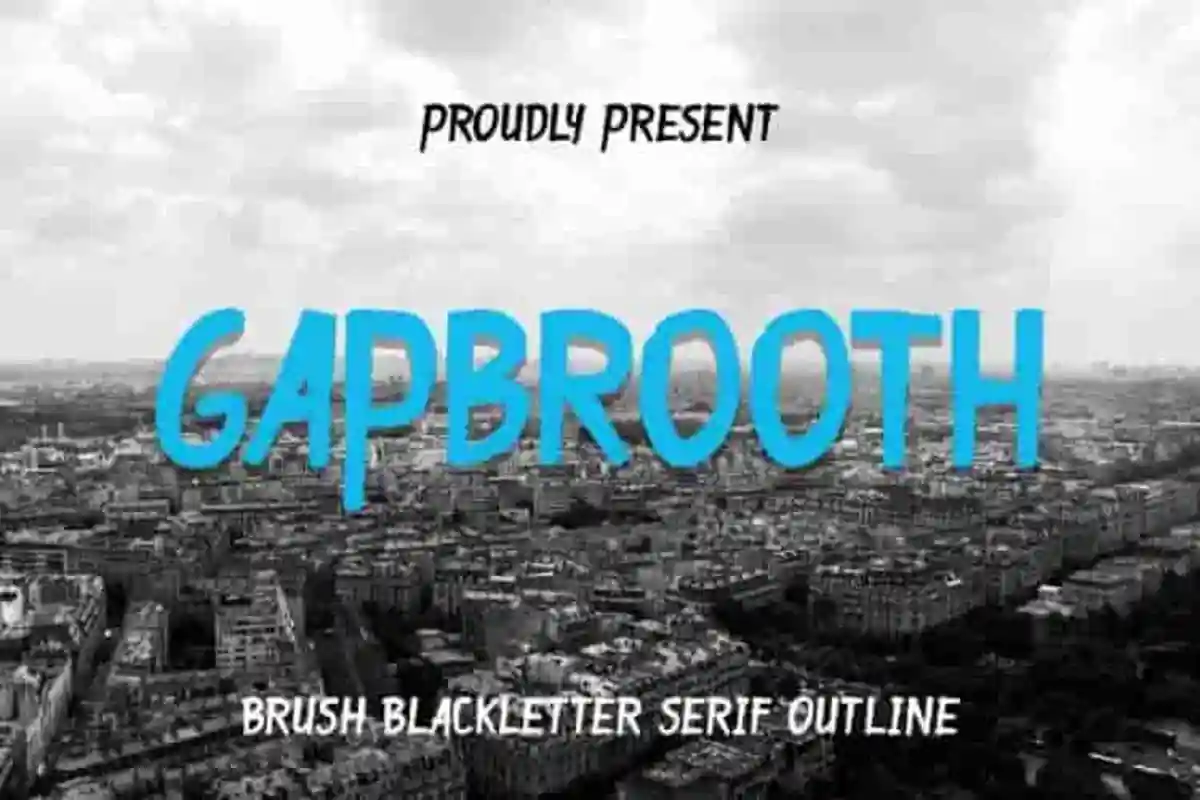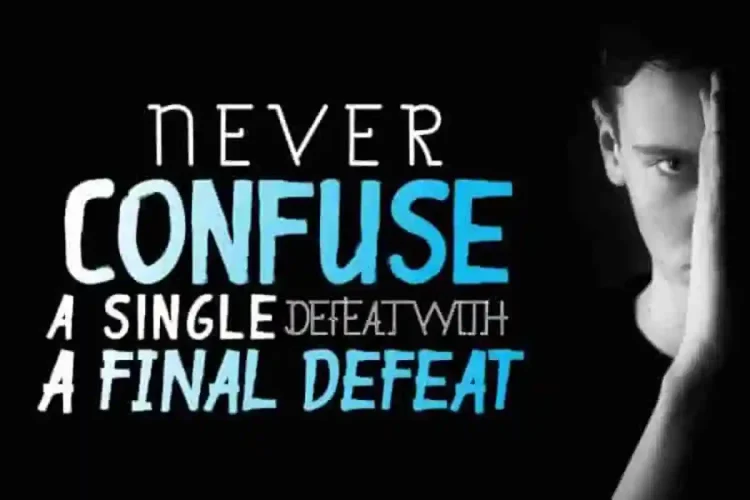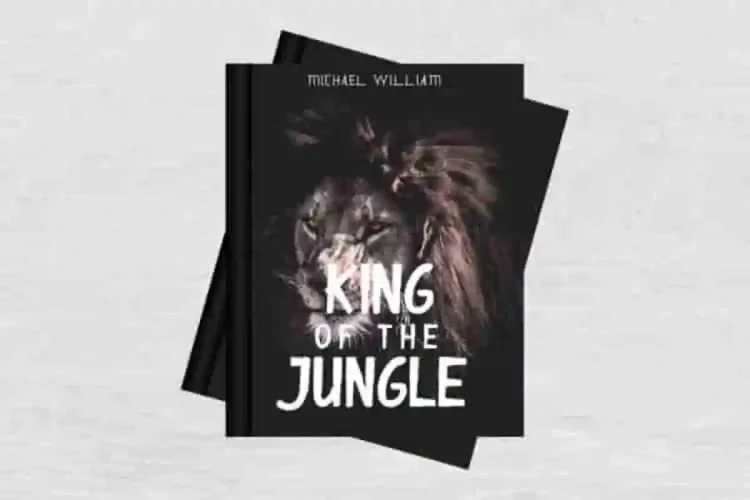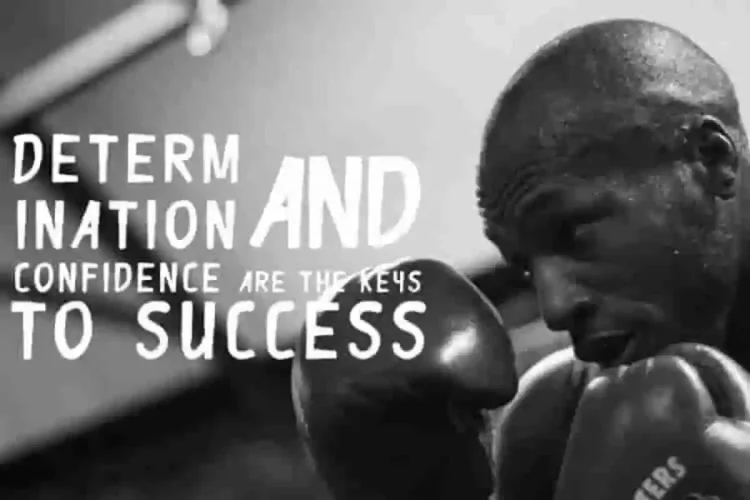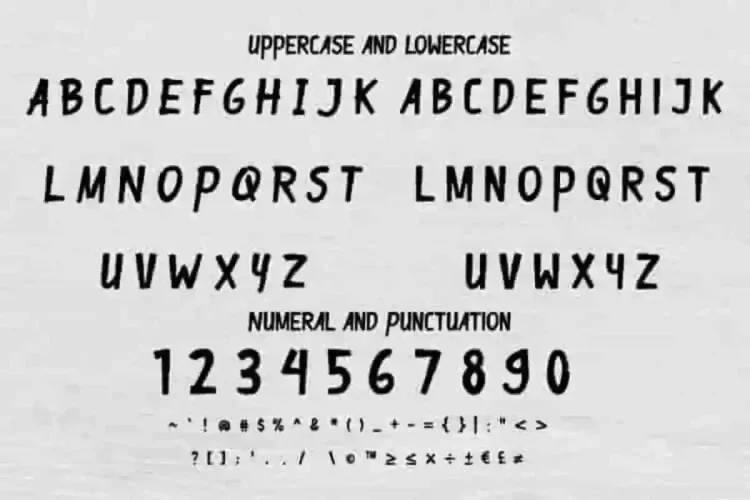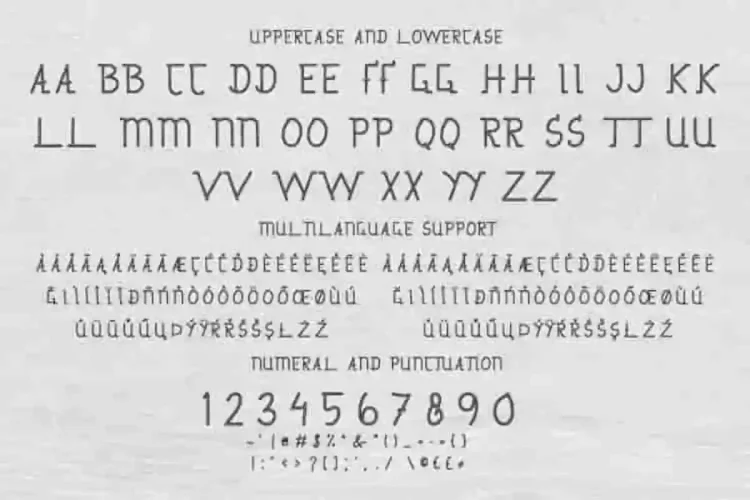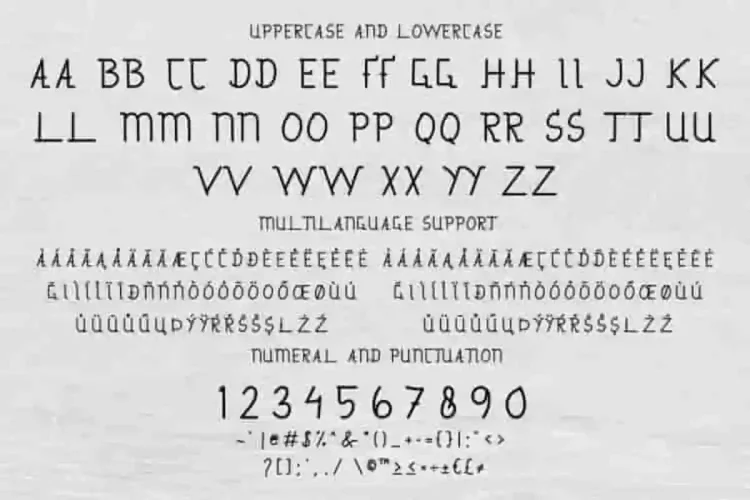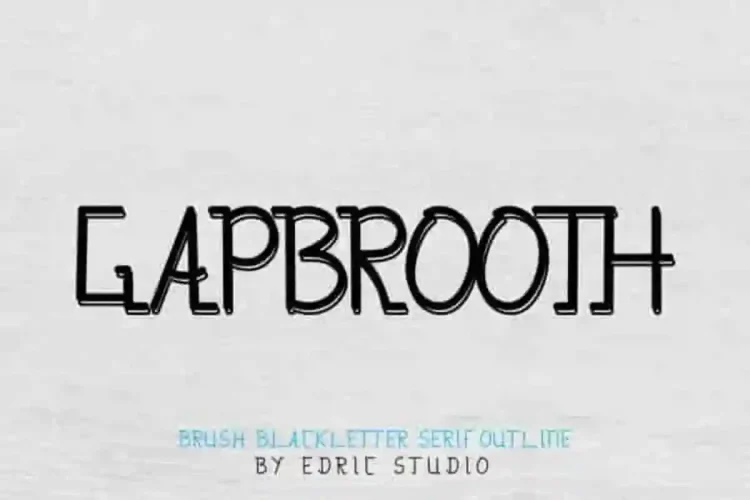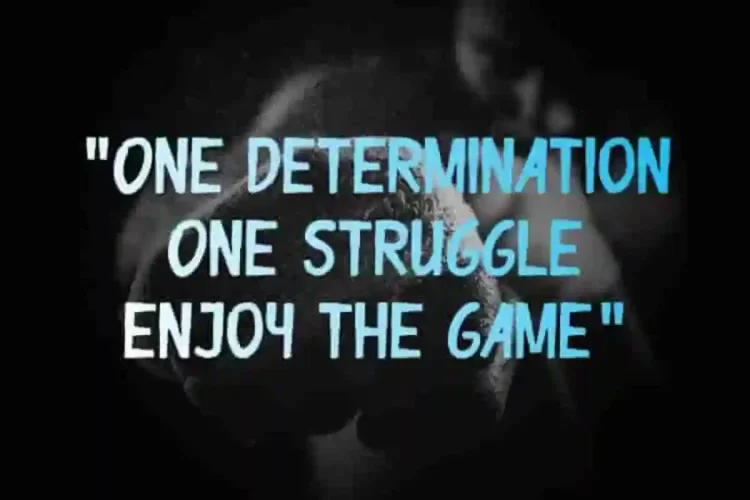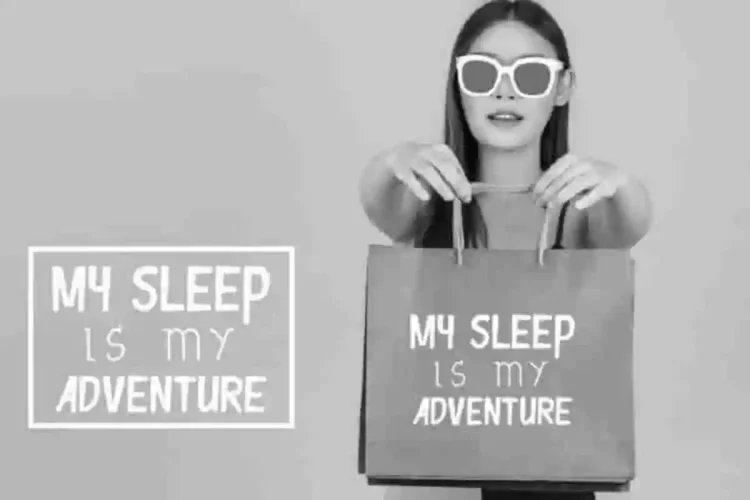
Gapbrooth Blackletter Font Duo
Edric Studio in 2020 Present to you : Gapbrooth Font Duo
This is a display brush font family made in Bandung-Indonesia. It has three styles : Reguler and Italic. Made by Ali and Sarah in Garut – Indonesia.
Gapbrooth Blackletter Font Duo helps your work stand out from the crowd. It will suit many projects : Logo type, flyer, stationery, business card, signage, flyer, brochure etc.  With your creativity, there’s no limit using with this font.